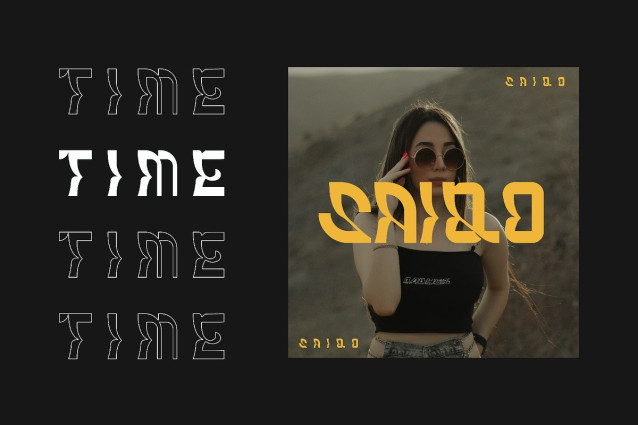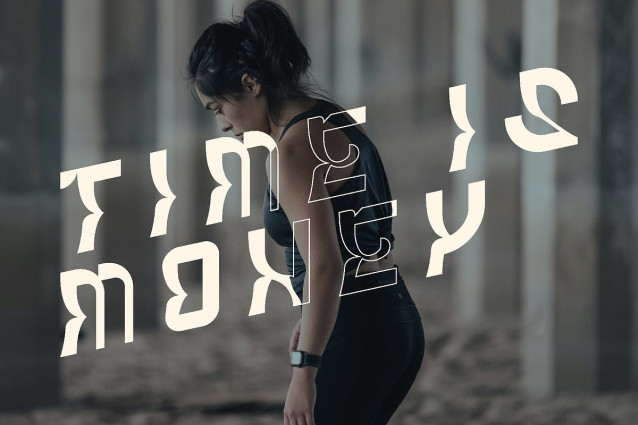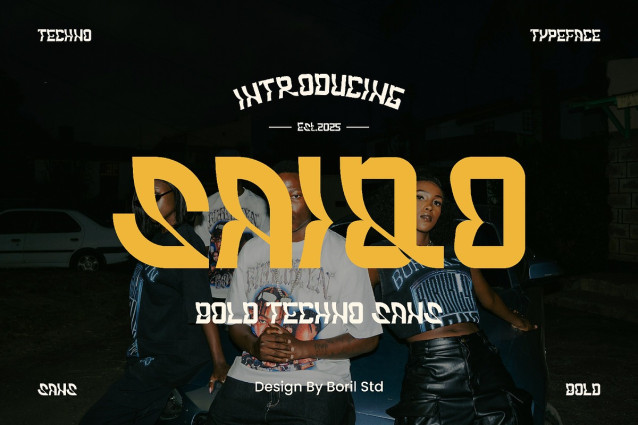
Saiqo Font – Display Font is a futuristic and experimental display typeface. Its warped geometry and angled cuts give it a kinetic, forward-moving energy that feels both digital and handcrafted.
The bold, semi-abstract letterforms create a rhythmic and hypnotic texture that challenges convention while maintaining surprising legibility in larger sizes.
With its distinct sci-fi flair and unconventional shapes, this font is ideal for editorial headlines, posters, branding, or any design seeking a rebellious and modern aesthetic